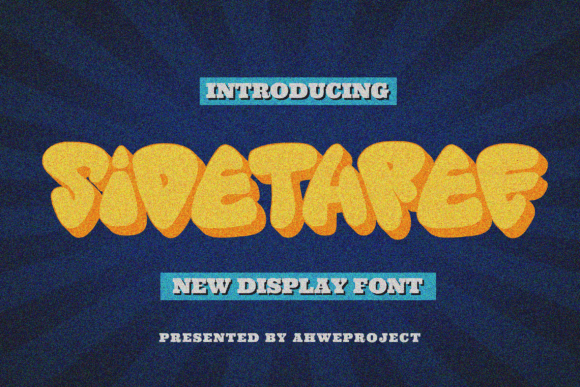
Journey into the realm of Sidethree, a display font family bursting with quirky boldness and an aura of uniqueness. Crafted by the skilled hands of ahweproject, Sidethree transcends conventional typography, ushering in a new era of visual expression. Its captivating letterforms, brimming with personality, unlock a world of design possibilities, igniting your creativity and leaving an indelible mark on your audience.
With Sidethree as your creative companion, mundane designs transform into captivating masterpieces. Its inherent charm and unmistakable presence breathe life into museum labels, posters, and packaging, demanding attention and inciting intrigue. Unleash the playful spirit of Sidethree in logos, branding, and social media graphics, leaving a lasting impression that resonates with your target audience. Embrace the whimsical nature of Sidethree in invitations, greeting cards, and wedding stationery, adding a touch of delightful playfulness to life's special moments.
Sidethree's versatile nature extends to web design and digital interfaces, where its distinctive character shines through. Its ability to convey messages with clarity and flair menjadikan it the perfect choice for headlines, menus, and call-to-action buttons, ensuring your website or app stands out from the crowd. Exceptional legibility and readability make it a joy to use, enhancing the user experience and leaving a positive impact on your brand's reputation.
Delve into the depths of Sidethree's diverse styles, each offering a unique flavor to suit your creative vision. From the classic elegance of Sidethree Regular to the playful exuberance of Sidethree Bold, the font family caters to a myriad of design aesthetics. Experiment with the charming Sidethree Italic for a touch of graceful movement or embrace the bold expressiveness of Sidethree Bold Italic to make a statement that commands attention.
With Sidethree at your fingertips, design limitations dissolve, and creative horizons expand. Its versatility and boundless potential empower you to craft designs that capture attention, resonate with audiences, and leave a legacy of visual excellence. Don't let ordinary fonts confine your creativity. Embrace the extraordinary with Sidethree and embark on a typographic adventure that will redefine your design journey.